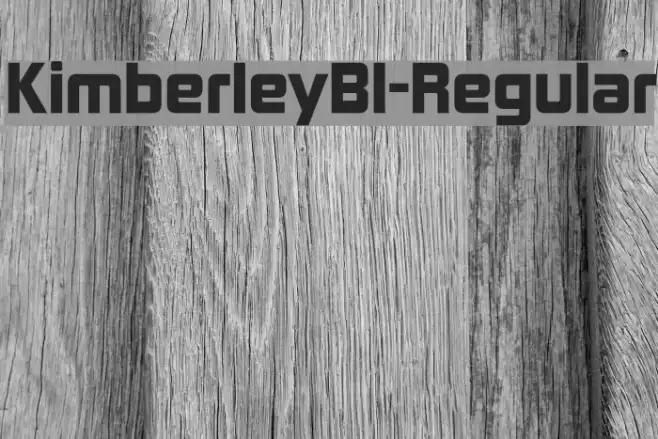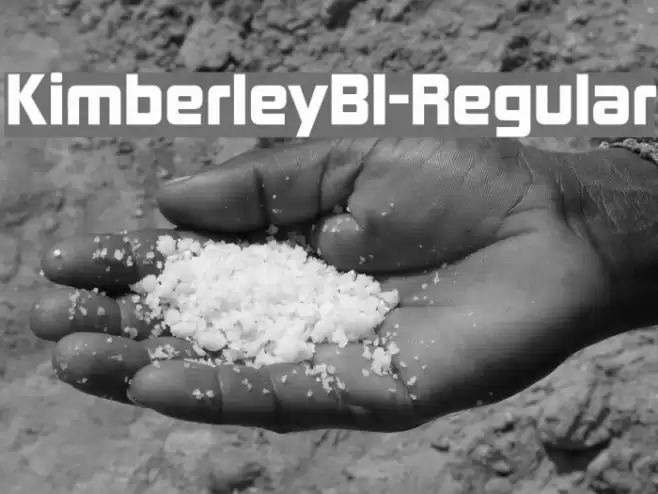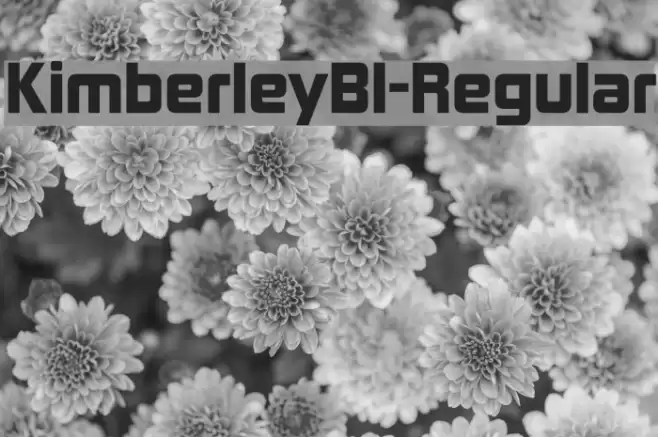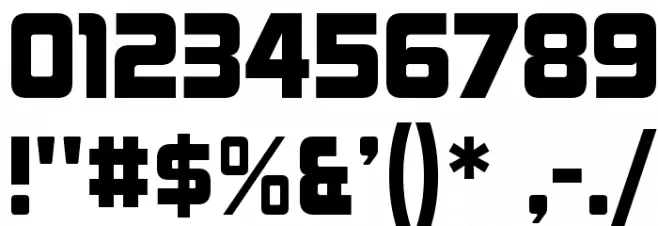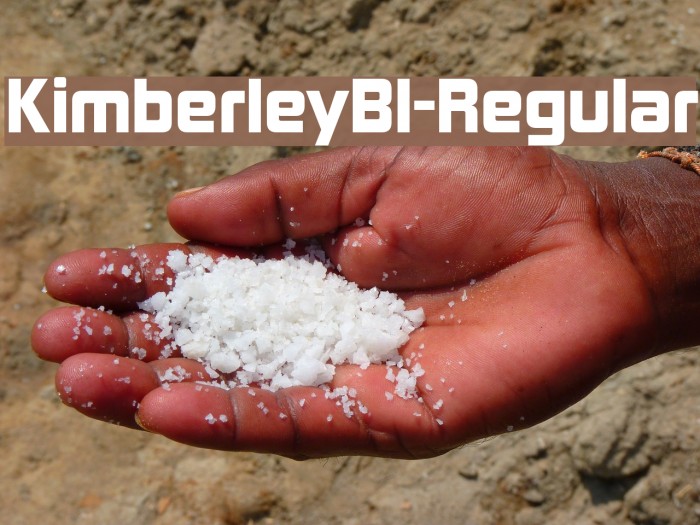
KimberleyBl-Regular Font
KimberleyBl-Regular Description
This font features a bold and modern design with strong geometric shapes. The characters are uniformly thick, giving it a robust and impactful appearance. The uppercase letters are particularly striking with their block-like structure, while the lowercase letters maintain a consistent style that complements the uppercase. The numerals are clear and easy to read, making them suitable for various applications. Special characters are well-integrated, maintaining the overall aesthetic. The font's clean lines and uniformity make it versatile for both digital and print media.
A bold, modern font with strong geometric shapes and uniform thickness from Uncategorized fonts.
- Proposed Projects: Ideal for branding, headlines, posters, and digital media where a strong, modern presence is desired.